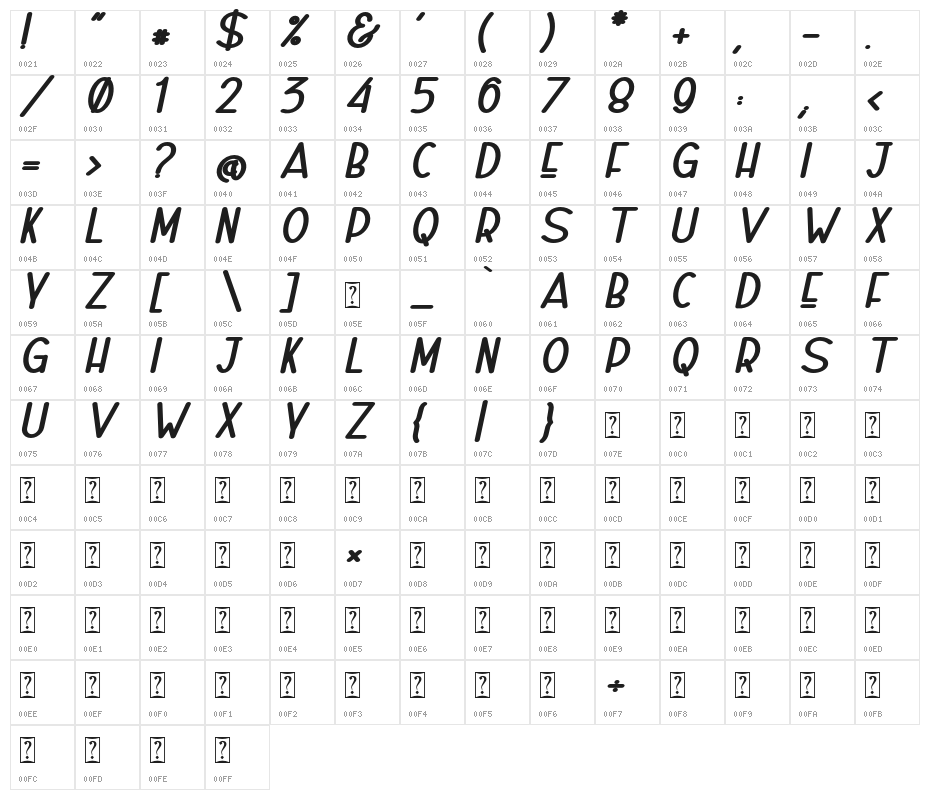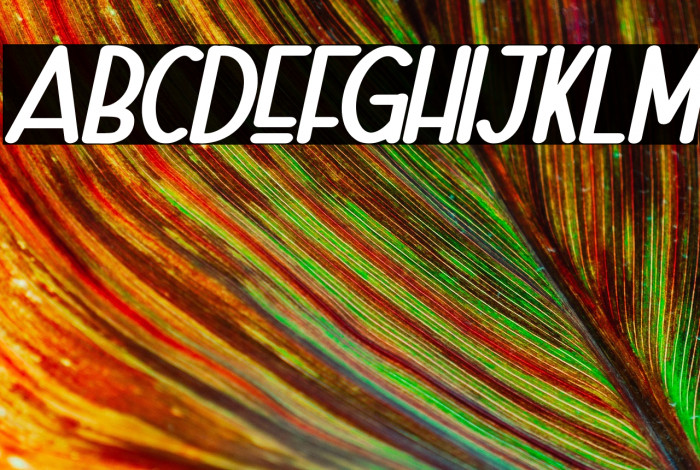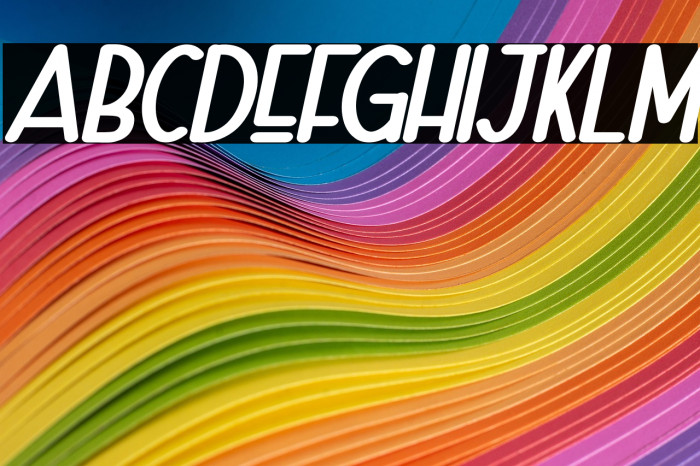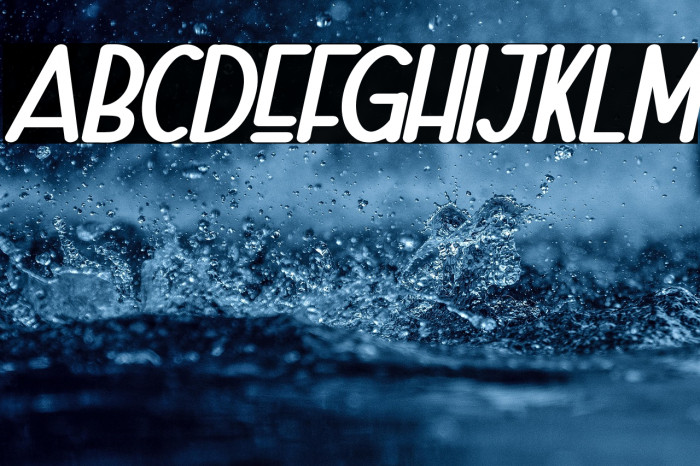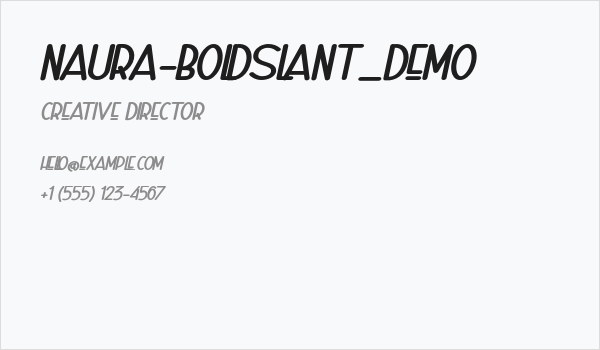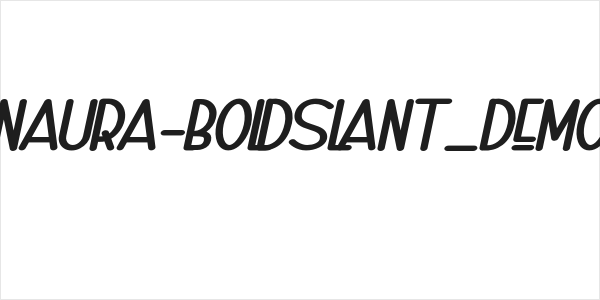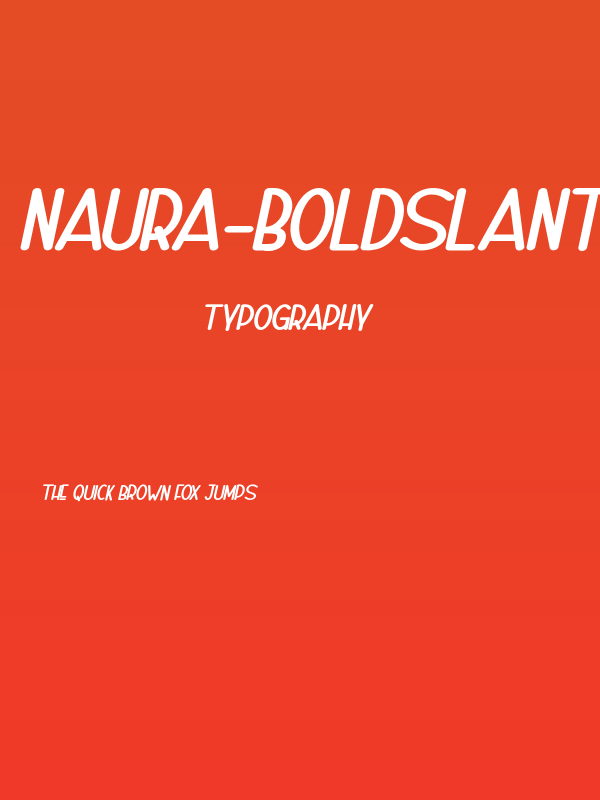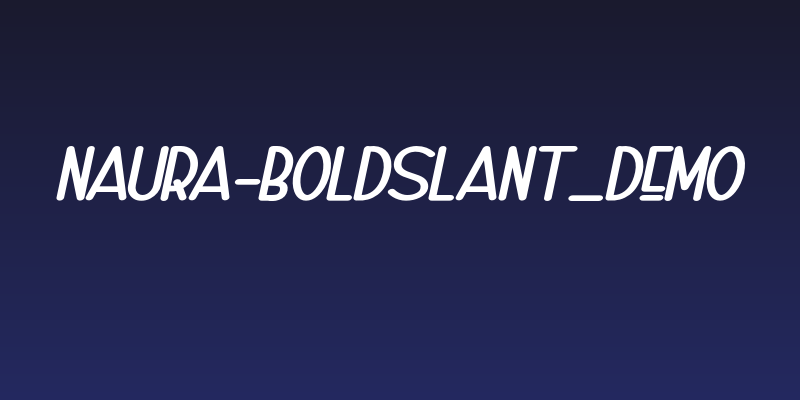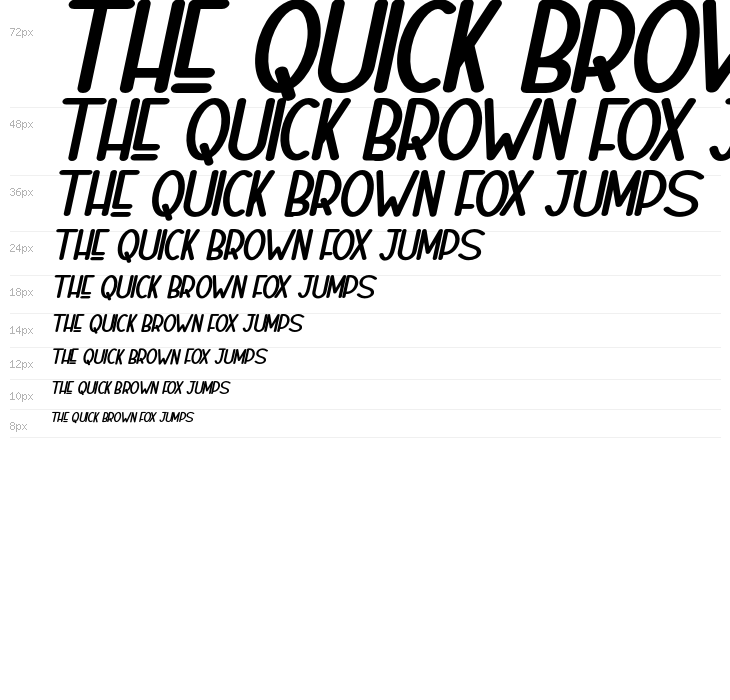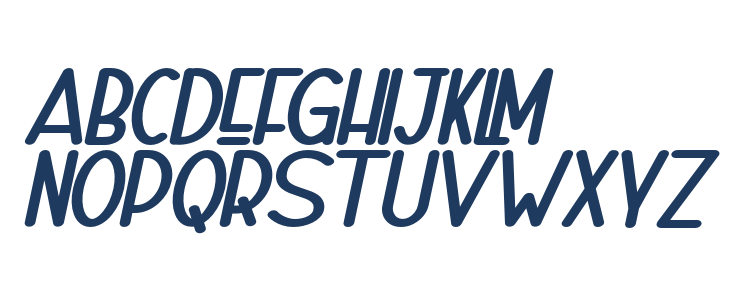
Naura-BoldSlant_DEMO Font
Naura-BoldSlant_DEMO Description
This font features a bold and slanted style, characterized by its dynamic and energetic appearance. The uppercase and lowercase letters are designed with a consistent slant, giving the text a forward-moving feel. The strokes are thick and uniform, providing a strong visual impact. The numbers and special characters maintain the same boldness and slant, ensuring a cohesive look across all elements. The font's design is modern and playful, making it suitable for projects that require a lively and engaging typeface.
| Proposed Projects | Ideal for branding, advertising, posters, and headlines that require a bold and modern touch. |